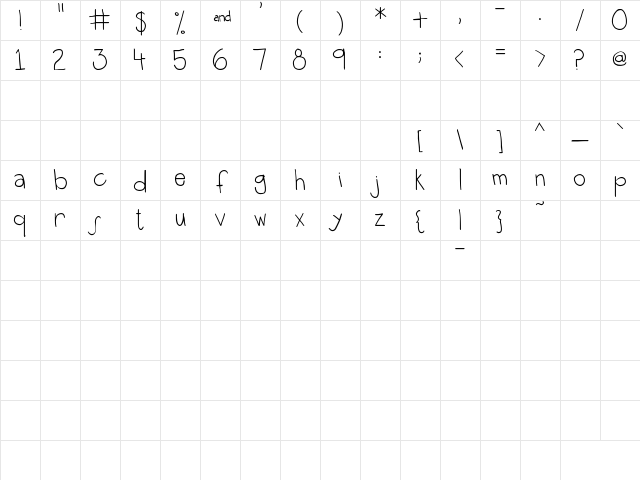
2peas milkshake Regular
Complete 2peas milkshake Regular glyph index. Displaying only characters natively supported by 2peas milkshake Regular font.
Design Context for 2peas milkshake
2peas milkshake is a composed and adaptable typeface that performs quietly and consistently across a wide range of design contexts.
Pro Tip: Use 2peas milkshake in both headline and body roles to test its range before committing to a single application.